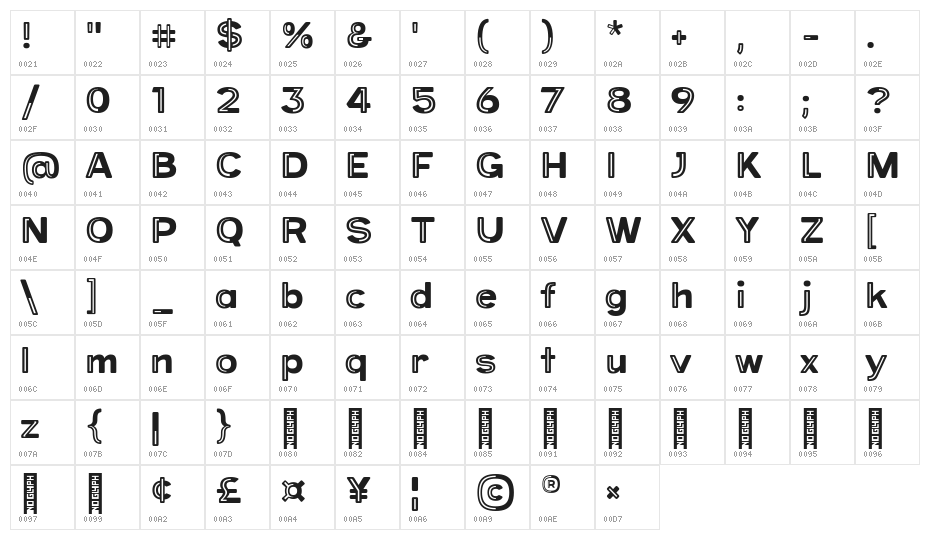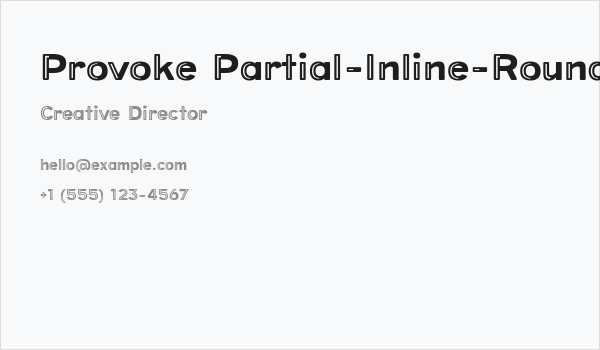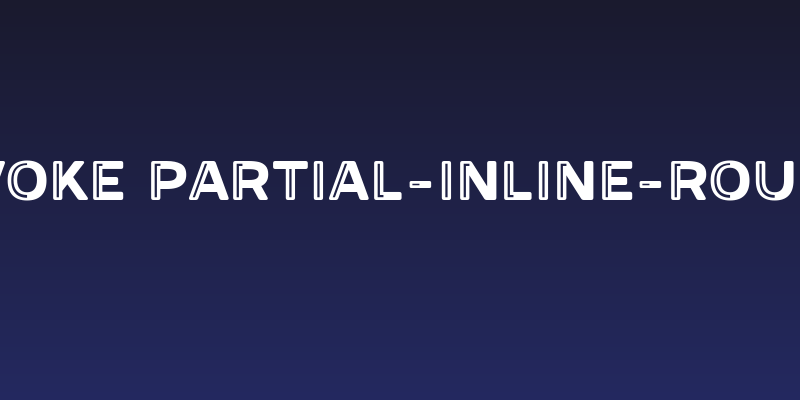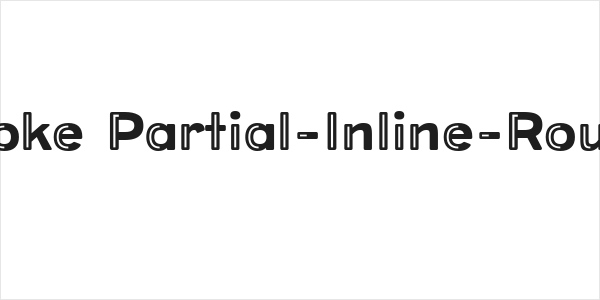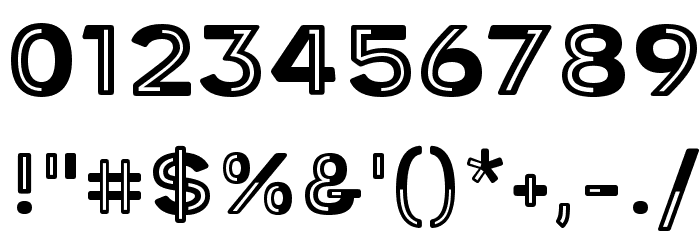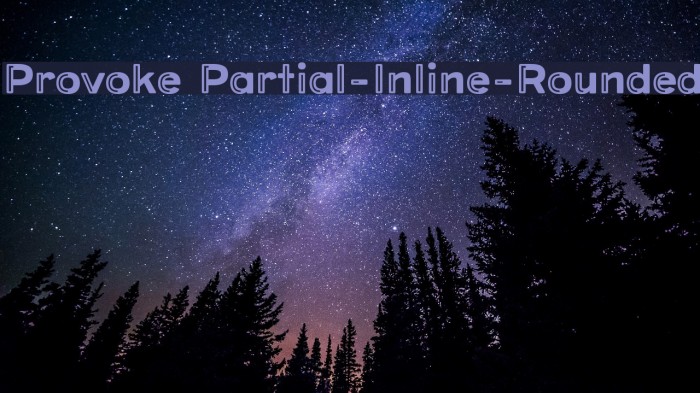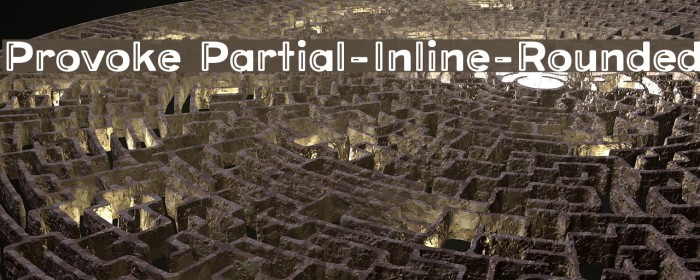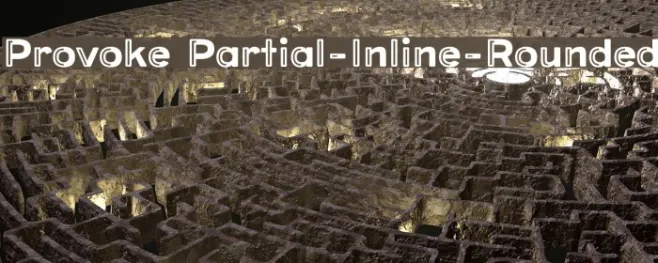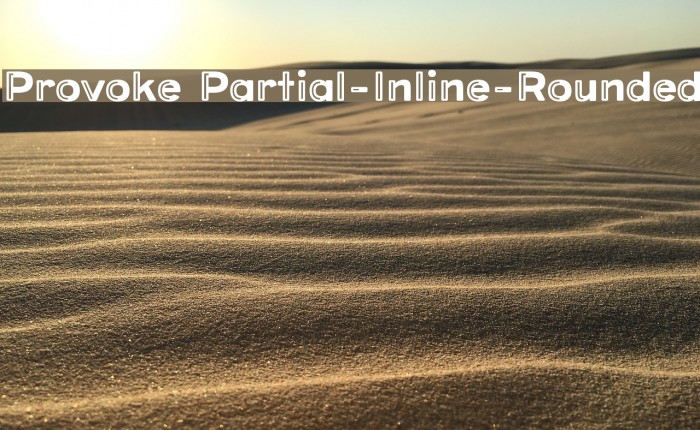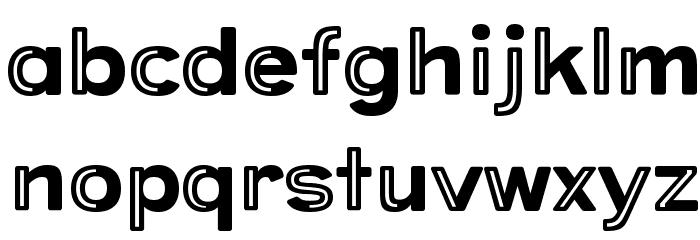
Provoke Partial-Inline-Rounded Font
Provoke Partial-Inline-Rounded Description
This font features a bold and modern design with a unique partial inline style that adds depth and dimension to each character. The rounded edges provide a friendly and approachable feel, making it versatile for various applications. The uppercase and lowercase letters maintain a consistent weight, ensuring readability and visual balance. The numerals are clear and distinct, while the special characters complement the overall aesthetic. The font's design is both contemporary and playful, suitable for projects that require a touch of creativity and modernity.
| Proposed Projects | Ideal for branding, advertising, packaging, and digital media projects that require a modern and playful touch. |